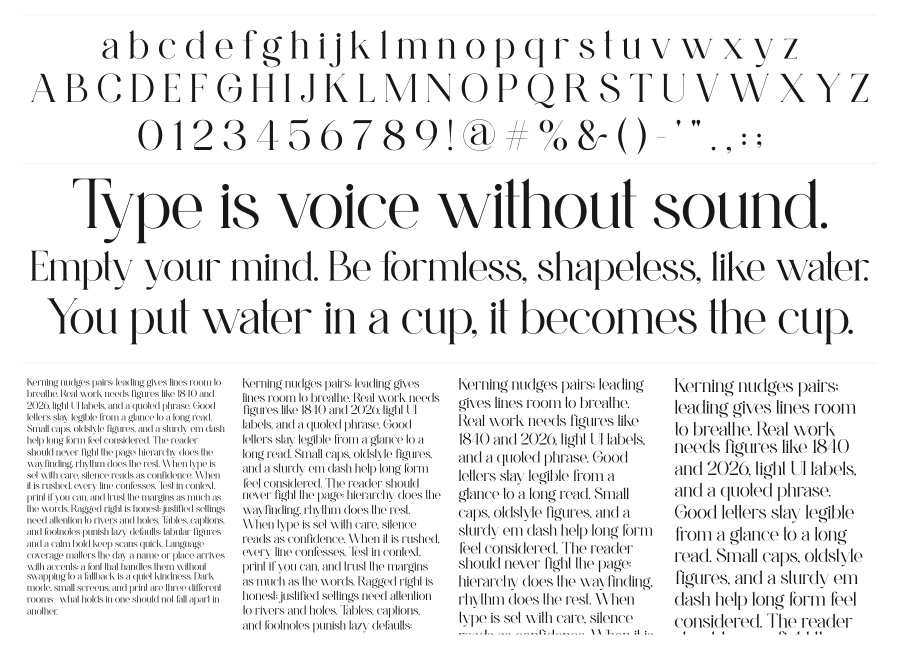
NCL Gastrub
NCL Gastrub is a high-contrast modern serif with dramatic thin-to-thick stroke variation inspired by the Didone tradition. Wide, open characters and delicate hairline strokes give it a couture sensibility that reads beautifully at headline scale. It belongs in the same visual vocabulary as luxury brand identities and high-fashion editorial spreads.